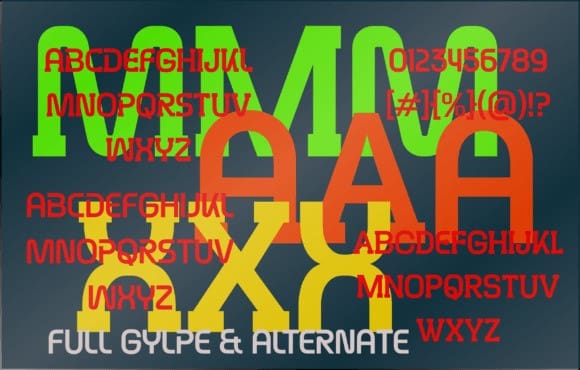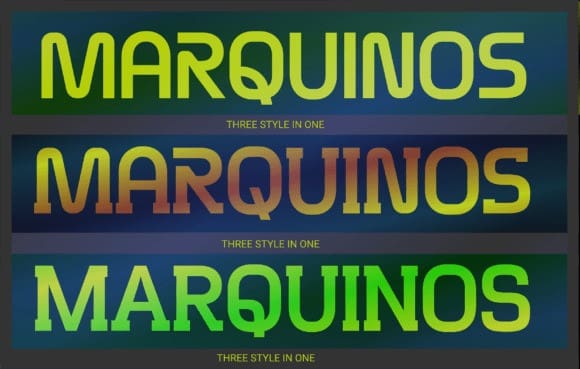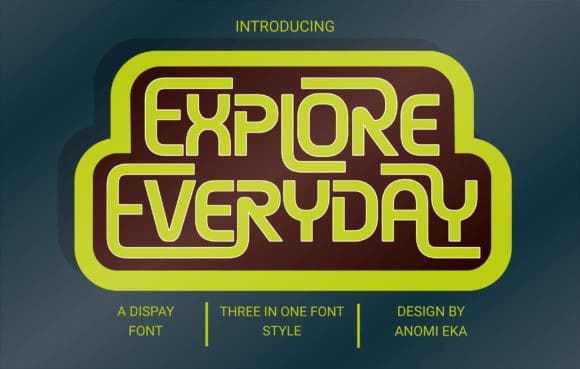
Explore Everyday Font
Explore Everyday Font is an authentic display font perfect for a movie poster, sport, racing designs, or nearly anything related to speed and power.